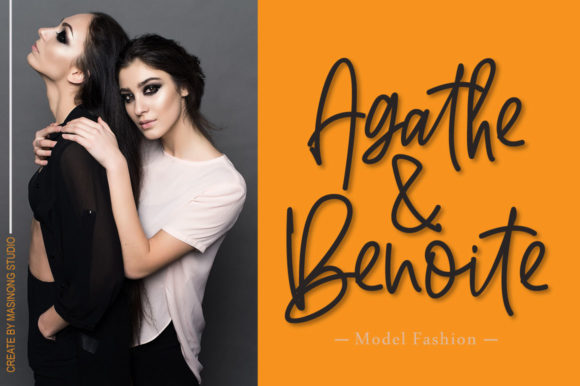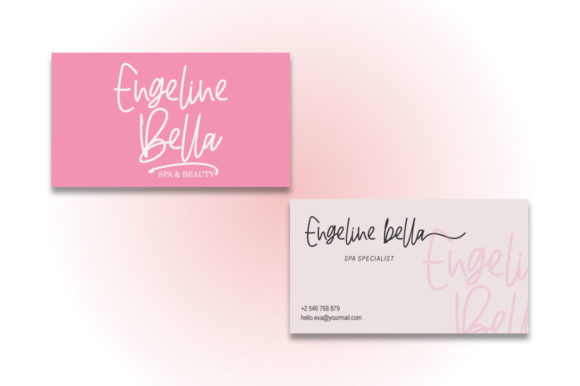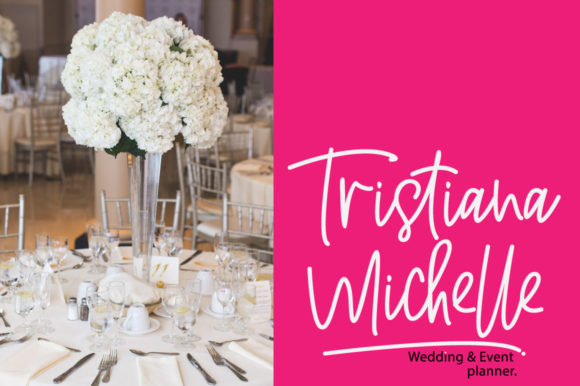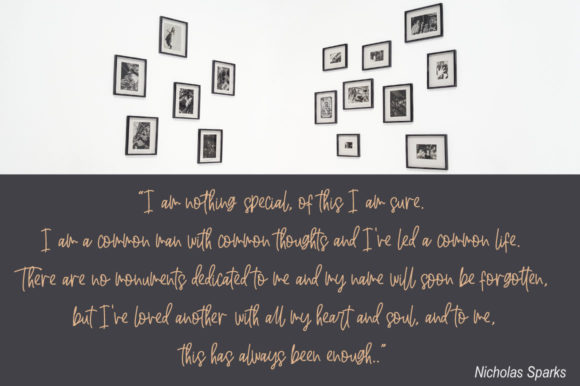
Introducing Castillo Font: Elevate Your Design Projects with Authenticity
In the world of typography, a signature script can make all the difference in setting your design projects apart from the rest. If you’re on the hunt for a font that exudes authenticity and sophistication, look no further than Castillo Font. This stunning script font is designed to take your designs to the next level, and we’re excited to dive into its features and benefits.
What is Castillo Font?
Castillo Font is a gorgeous signature script that boasts a unique, hand-crafted feel. Its elegant strokes and fluid connections make it perfect for a wide range of design applications, from branding and packaging to invitations and digital media. With Castillo, you can add a touch of personality and whimsy to your projects, setting them apart from the ordinary.
Key Features of Castillo Font
• Authentic and Unique: Castillo Font is designed to radiate authenticity, making it perfect for designers and crafters who want to add a personal touch to their work.
• Elegant and Sophisticated: With its flowing strokes and refined connections, Castillo exudes sophistication and poise.
• Versatile: Use Castillo for a wide range of design projects, from logos and branding to invitations and digital media.
• Easy to Read: Despite its ornate nature, Castillo Font remains highly legible, making it perfect for use in both print and digital applications.
Benefits of Using Castillo Font
So why choose Castillo Font for your design projects? Here are just a few benefits you can expect:
• Adds Personality: Castillo Font allows you to inject personality and whimsy into your designs, helping you stand out in a crowded market.
• Enhances Brand Identity: With Castillo, you can create a unique and memorable brand identity that resonates with your target audience.
• Streamlines Design Process: Castillo Font is easy to use and works seamlessly with a range of design tools, saving you time and effort.
• Scalable: Castillo Font remains clear and legible at various sizes, making it perfect for use in a range of applications.
How to Use Castillo Font in Your Design Projects
Ready to get started with Castillo Font? Here are a few ideas to get you started:
• Branding and Packaging: Use Castillo Font to create eye-catching logos, business cards, and packaging that reflects your brand’s personality.
• Invitations and Events: Add a touch of elegance to your invitations, wedding stationery, and event branding with Castillo Font.
• Digital Media: Use Castillo Font in your social media graphics, blog headers, and email newsletters to add a personal touch.
Font Name Castillo Font
In conclusion, Castillo Font is a stunning signature script that can elevate your design projects to new heights. With its unique, hand-crafted feel and elegant strokes, Castillo exudes authenticity and sophistication. Whether you’re a designer, crafter, or DIY enthusiast, Castillo Font is the perfect addition to your typography toolkit. So why wait? Download Castillo Font today and take your designs to the next level!